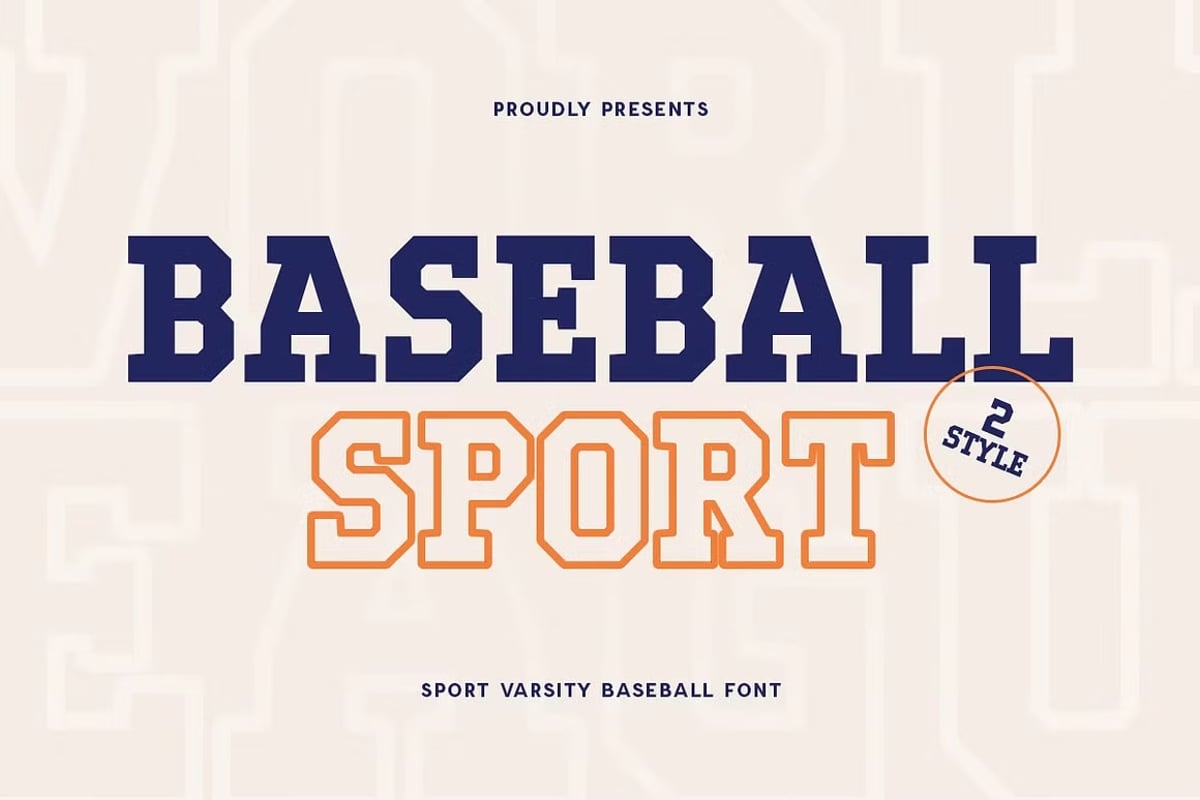
Baseball Sport - Varsity Font
Create professional sports designs with Baseball Sport - the varsity font family designed for modern athletic branding. This specialized font family delivers the authentic look of professional sports typography, perfect for headlines and branding that demands attention. The unique slab serif design captures the classic varsity aesthetic while maintaining modern versatility for contemporary design needs. Whether you're designing team logos, sports merchandise, or athletic promotional materials, B...